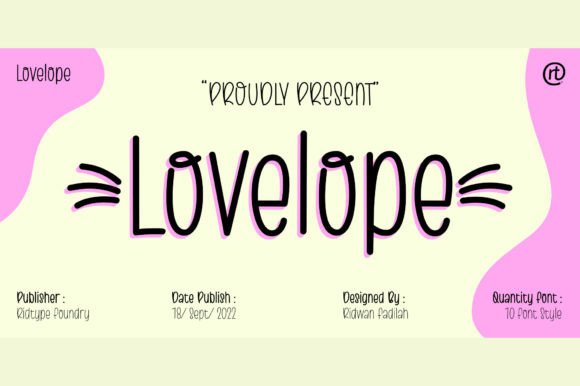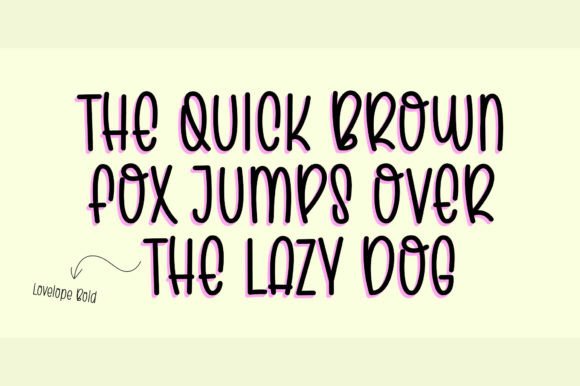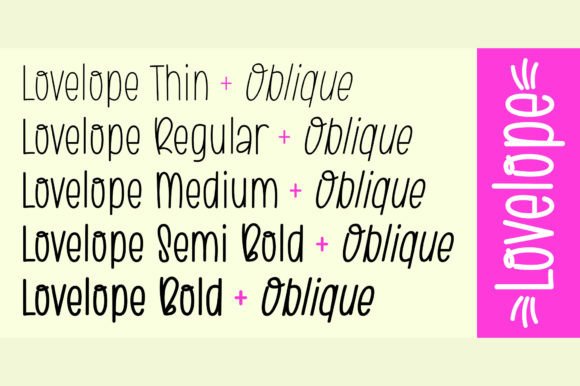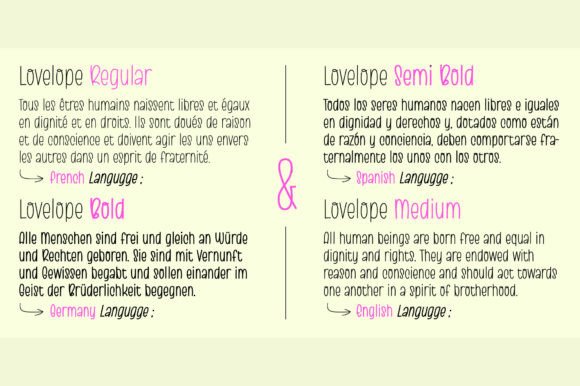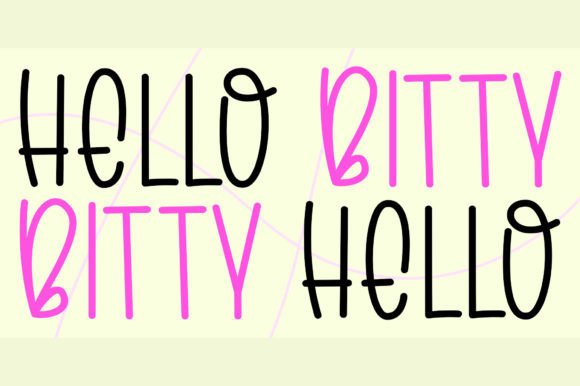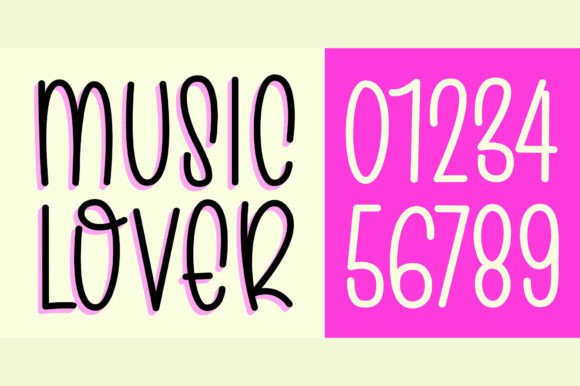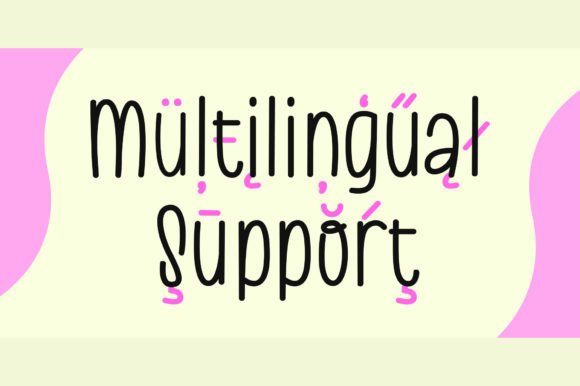
Lovelope Font
Lovelope Font : A Cute Handwritten Font with Sans Serif Charm
Introducing Lovelope, a delightful typeface inspired by the unbridled joy of a little girl at play. This unique font combines cuteness with a sans-serif style, making it perfect for various creative applications.
Key Features of Lovelope Font
• Cute Handwritten Style: Captures the essence of childhood happiness
• Sans Serif Twist: Adds a modern touch to the playful design
• Versatile Application: Ideal for stickers, printing, logos, and more
Perfect for Multiple Design Projects
Lovelope’s adaptability makes it an excellent choice for:
Enhancing Your Creative Vision
With Lovelope, you can infuse your designs with pure joy and positivity. Its unique character ensures that your content radiates charm and happiness, making it perfect for projects aimed at spreading smiles.
Digital and Print Versatility
Whether you’re creating digital designs or print materials, Lovelope maintains its cheerful appeal. Use it for:
• Engaging website headers for child-friendly sites
• Fun email marketing campaigns for family-oriented businesses
• Adorable product packaging for children’s items
• Memorable greeting cards and invitations
Customization Options
Lovelope offers a range of customization options, allowing you to tailor your text to match your creative vision perfectly. This flexibility empowers you to create designs that reflect the joyful spirit of childhood.
Lovelope is more than just a font; it’s a design asset that brings happiness and playfulness to your creative projects. Its handwritten style, inspired by a little girl’s joy, creates designs that resonate with positivity and charm. By incorporating Lovelope into your designs, you can create visually appealing and heartwarming content that engages your audience. Whether you’re a professional designer or someone looking to add a touch of happiness to personal projects, Lovelope offers the perfect blend of cuteness and functionality. Consider pairing Lovelope with clean sans-serif fonts for contrast or complementing it with other script fonts for a dynamic typographic palette. This versatility allows you to create designs that are both adorable and harmonious across various mediums. Embrace the joyful spirit of Lovelope today and watch as it transforms your creative ideas into delightful and engaging designs that spread happiness!